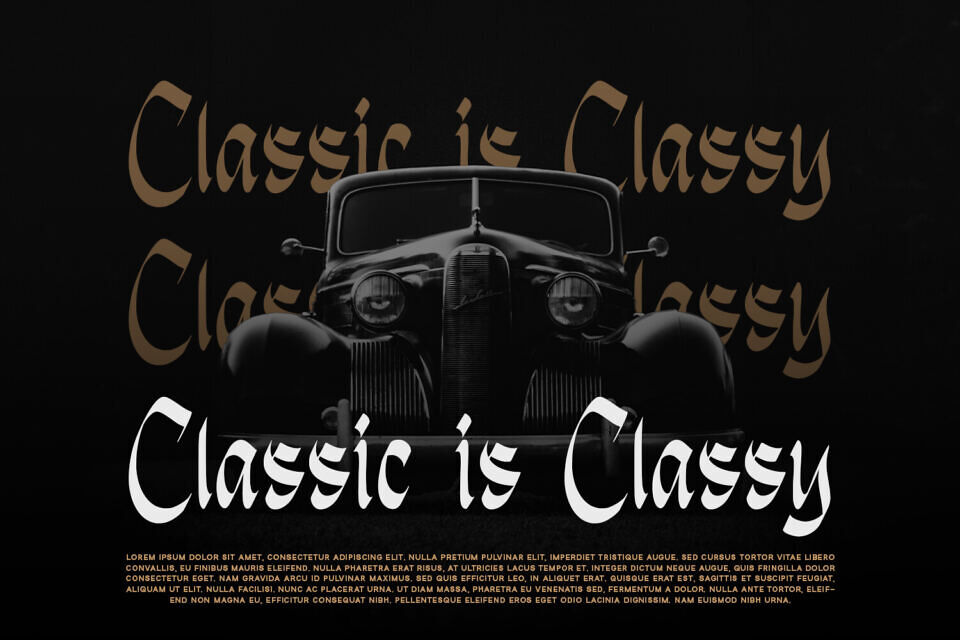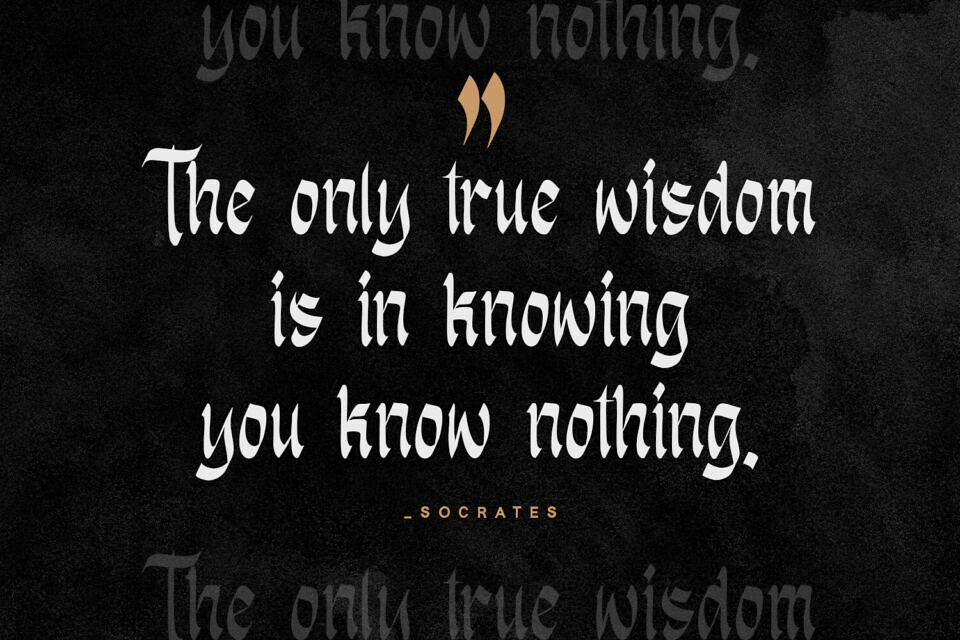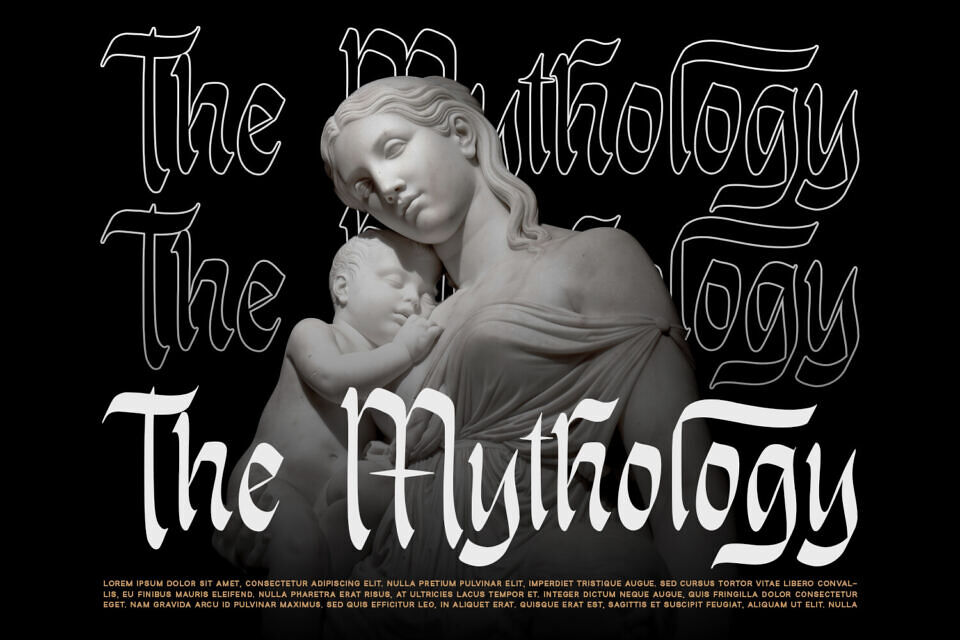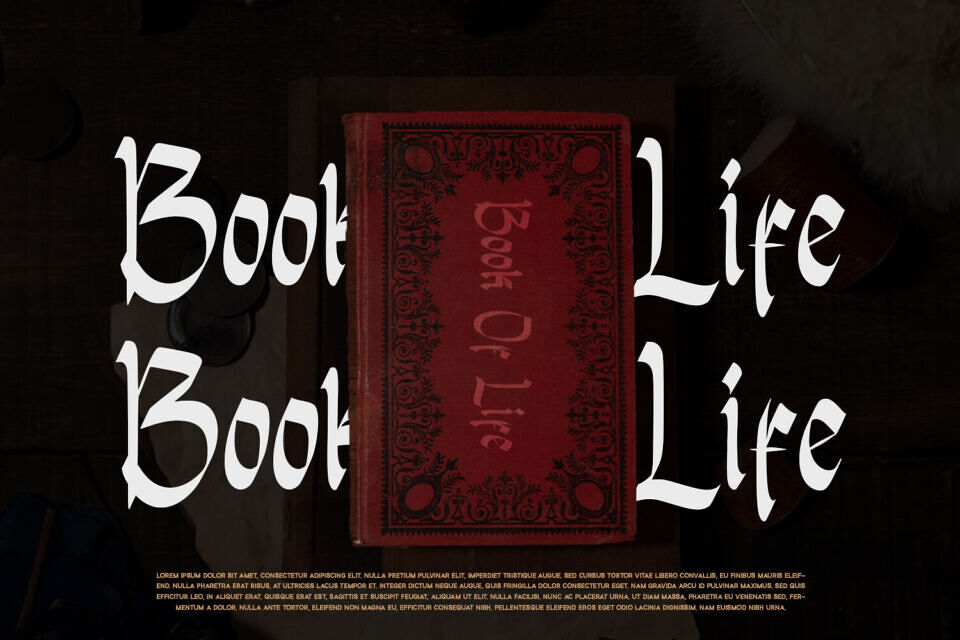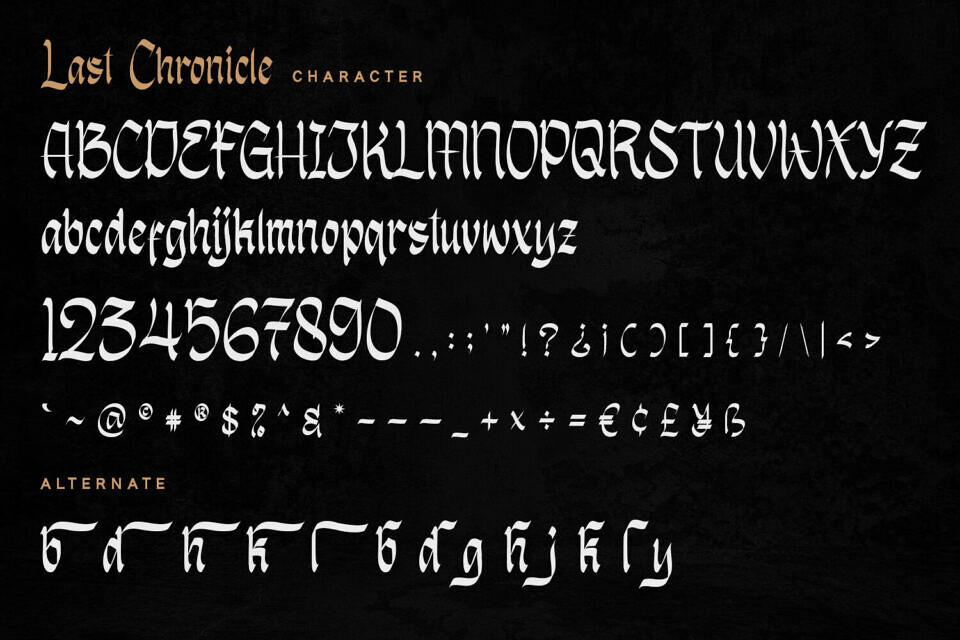
Last Chronicle is a blackletter font with unique and modern feels. It will be perfectly used for magazines, packaging, posters, shopping bags, t-shirts, book covers, photography, special events and other design projects.